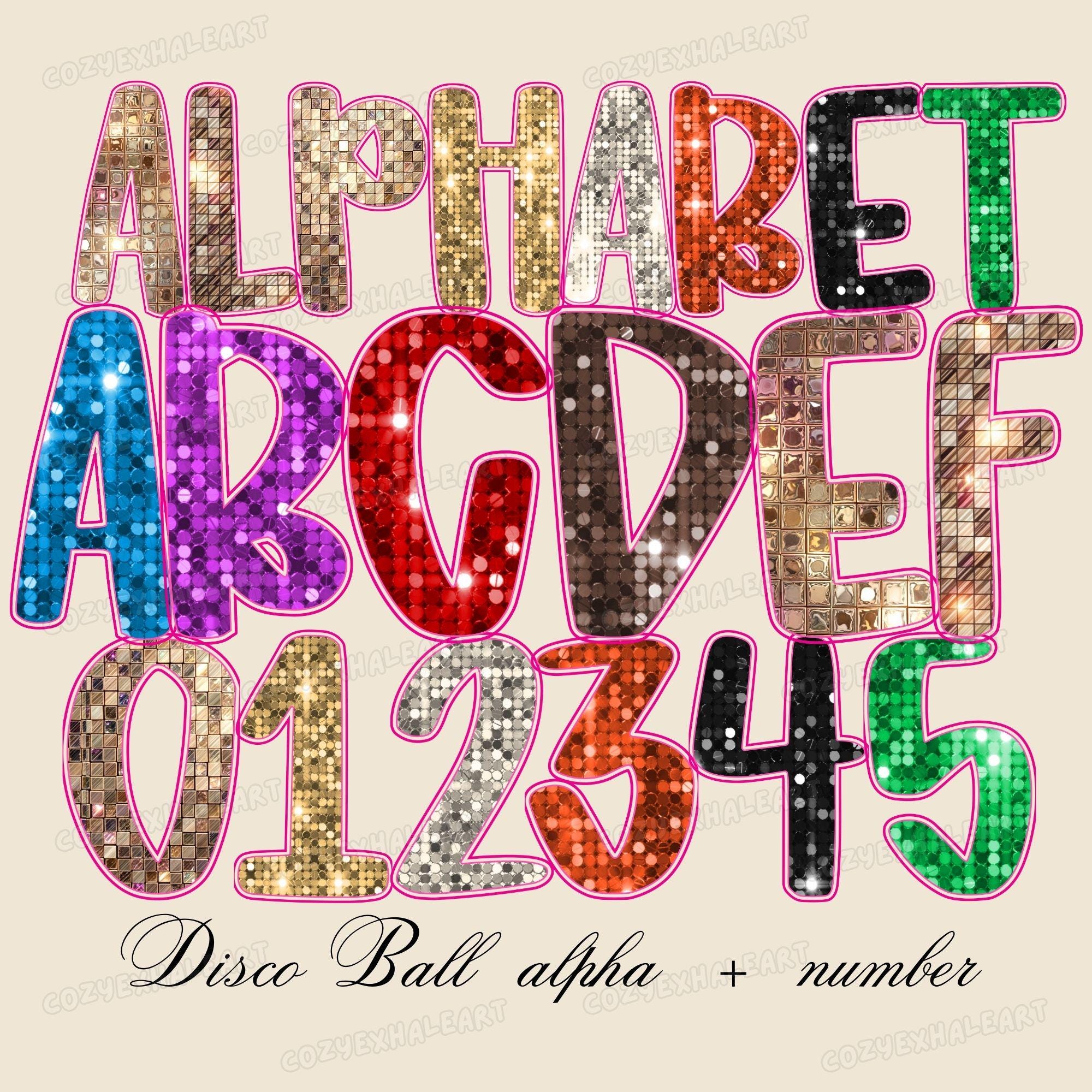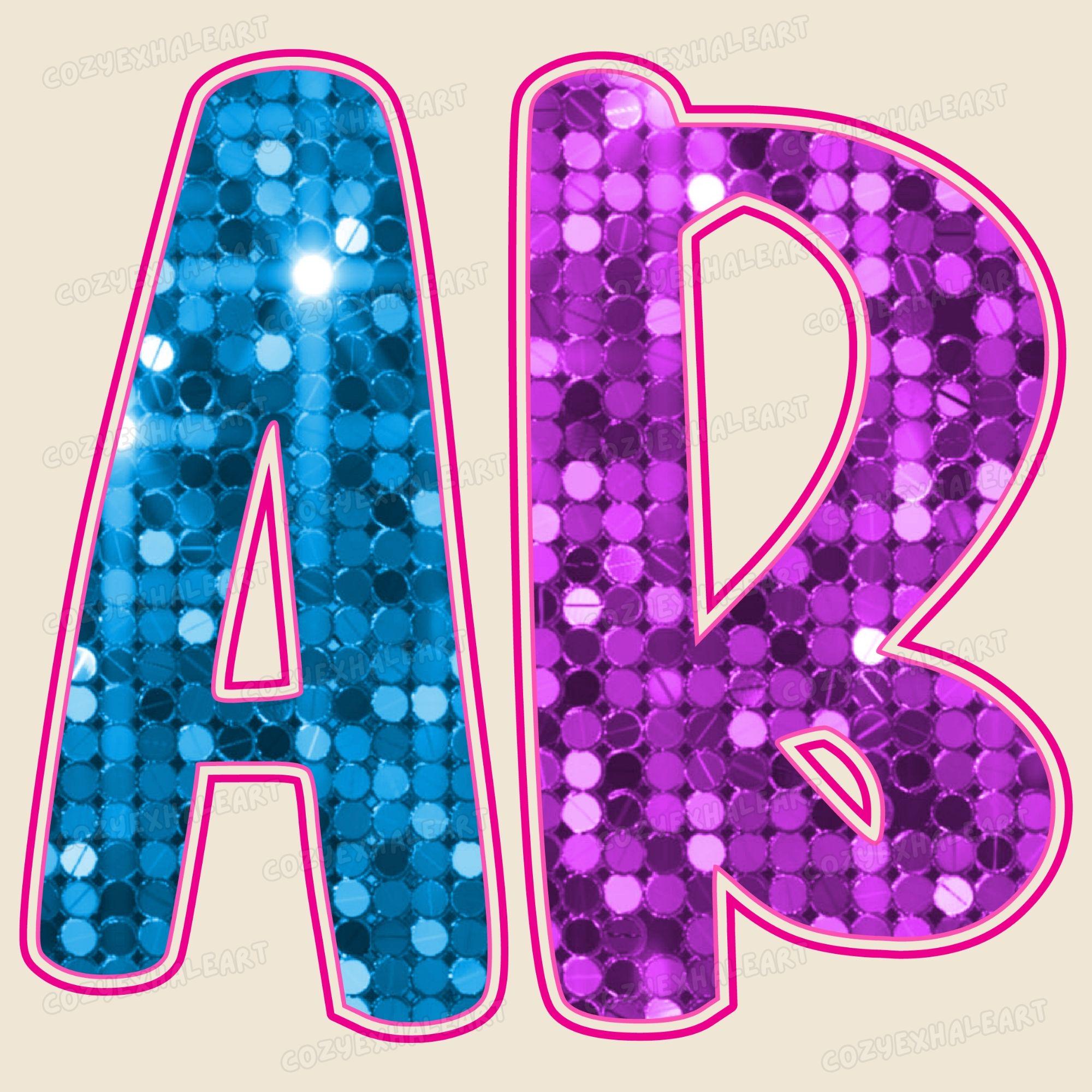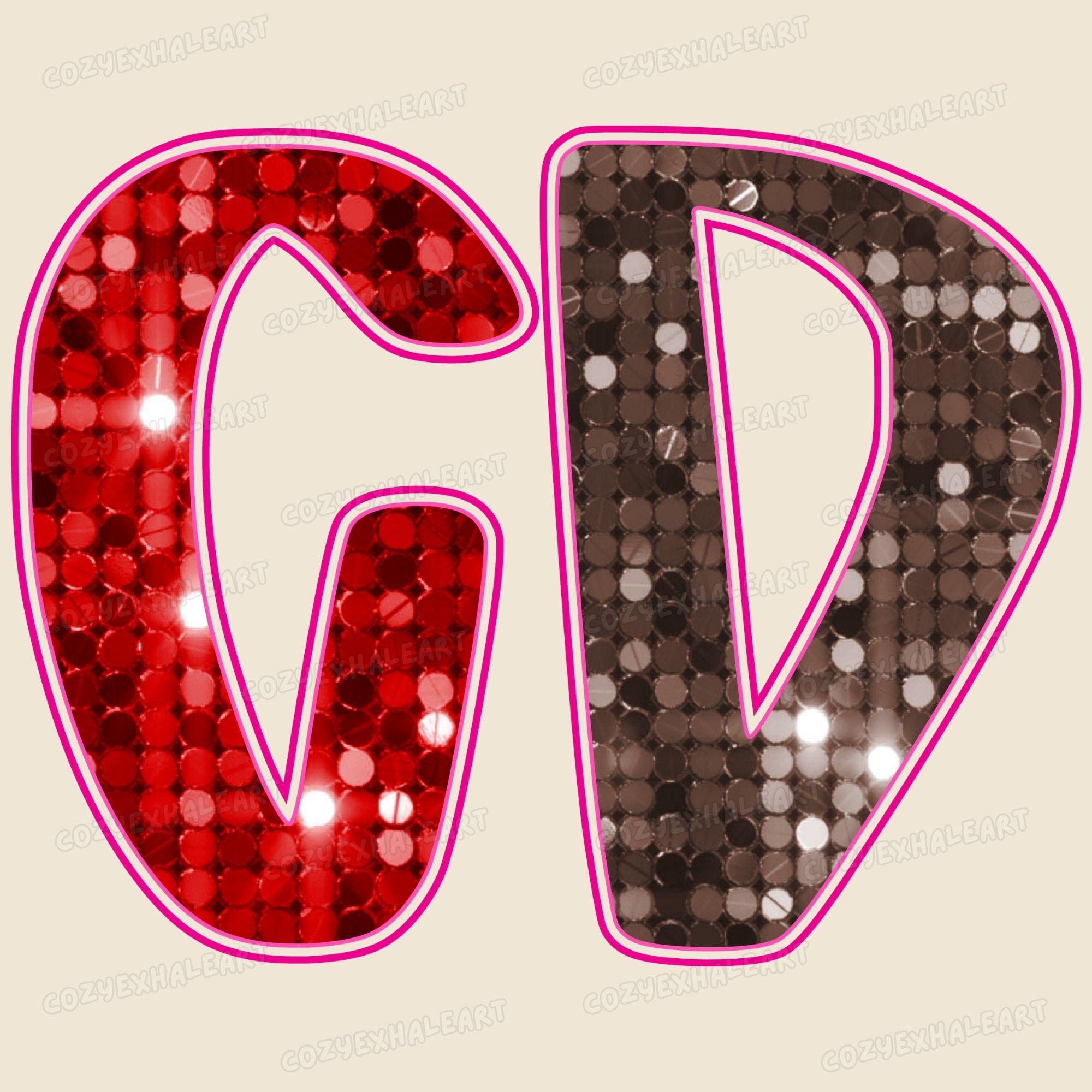
Disco Ball Alphabet PNG – Glitter Sequin Letters and Numbers for Sublimation, Retro Party Font Clipart for 70s Crafts and Digital Downloads
Bring the sparkle and groove to your next creation with this Disco Ball Alphabet PNG Bundle, featuring glittering sequin letters and shiny numbers inspired by the iconic style of the 1970s dance floor.
Perfect for sublimation designs, birthday party decor, retro apparel, and bachelorette crafts, this bold, high-resolution alphabet adds serious shimmer and sass to any celebration.
• Full A–Z disco ball style letters
• 0–9 matching numbers
• Glittery, metallic look without the mess
• Nostalgic 70s style with modern print quality